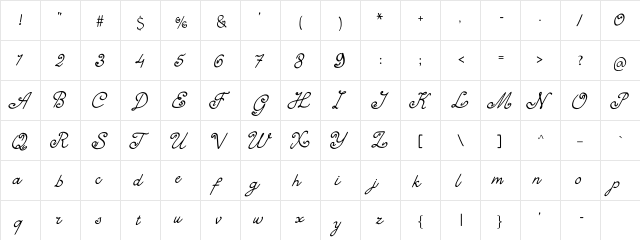
Mounlee Regular
| Designer | Yusup Saputra |
Design Context for Mounlee Typeface
Mounlee is a composed and adaptable typeface that performs quietly and consistently across a wide range of design contexts.